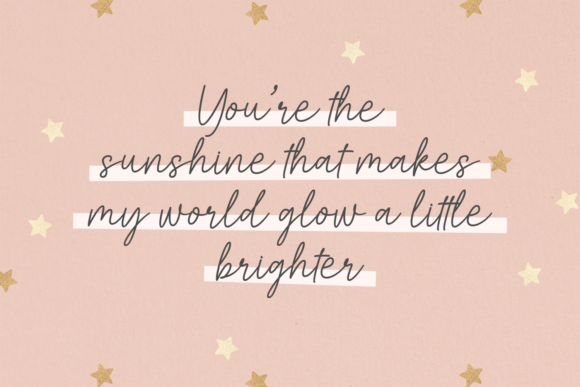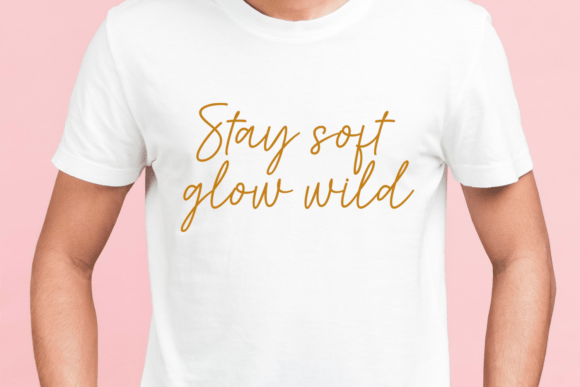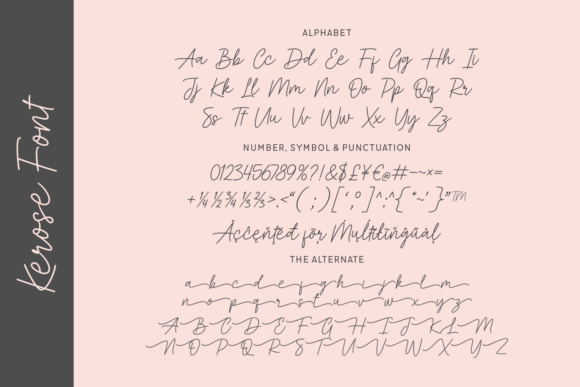
Introduction to Kerose Font Font
Fonts play a crucial role in design, and the Kerose Font font is a typeface that brings both character and versatility to any project. Whether you’re working on a branding project, a website, or a print design, the Kerose Font font offers a unique style that can elevate your work.
Kerose is a charming monoline script font featuring soft curves and elegant swashes at both ends of each word.
Its clean, flowing lines evoke a casual yet polished aesthetic, perfect for branding, stationery, feminine logos, and social media quotes With front and back swash options, Kerose offers versatility and personality, making it an ideal choice for designers seeking a touch of whimsy and grace.
Key Features of Kerose Font Font
Why Choose Kerose Font Font?
The Kerose Font font is more than just a typeface – it’s a design tool that helps you communicate your message with style and clarity. Its unique character set and versatile design make it suitable for a wide range of applications, from elegant invitations to bold headlines.
With its carefully crafted letterforms and balanced proportions, the Kerose Font font ensures readability and visual appeal across all mediums.
What makes Kerose Font font special?
The Kerose Font font stands out with its unique design, exceptional readability, and versatility across various design applications.